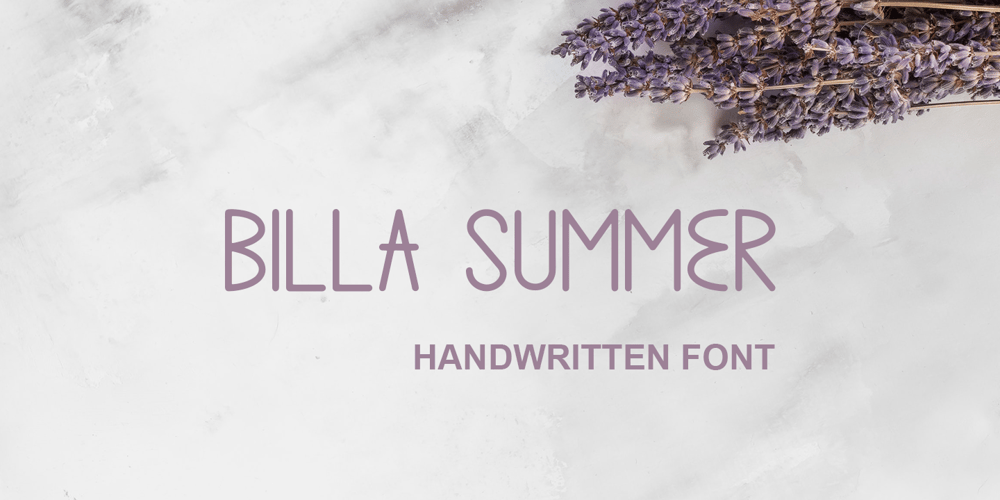
Billa Summer
Billa Summer font
Billa Summer Font Family was designed by Afif Hidayat Alhabsi and published by Lafitte 58. Billa Summer contains 1 styles and family package options. Billa summer is a thin and clean handwritten font. It can easily be matched to an incredibly large set of projects, so add it to your creative ideas and notice how it makes them stand out!